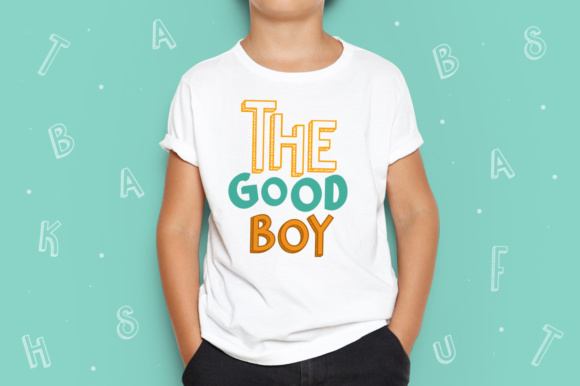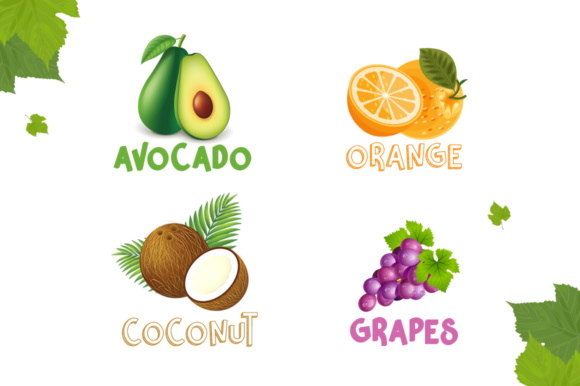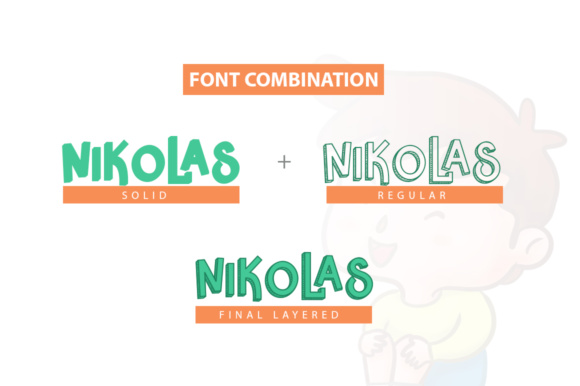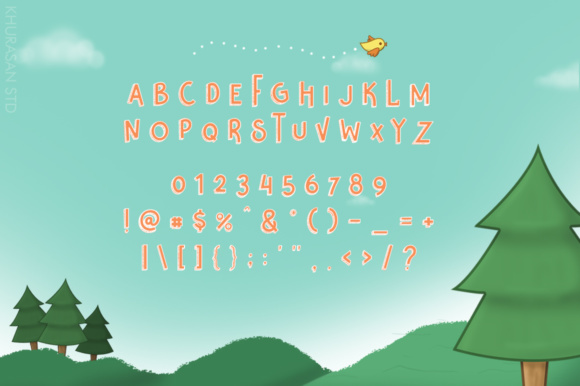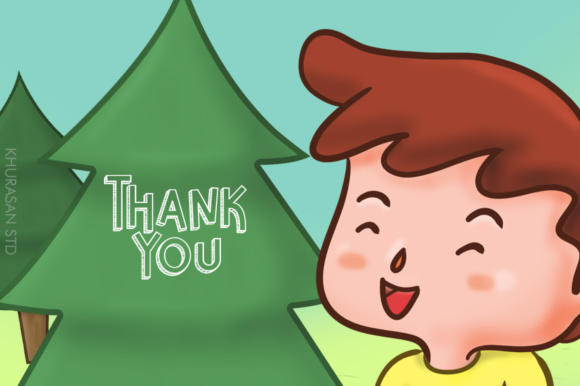
Introduction to Nikolas and Pine Font
Have you ever stumbled upon a font that perfectly captures the essence of your creative project? For designers, finding that elusive font can be a game-changer. It’s the moment when all the elements come together, and your design shines with a newfound depth. That’s exactly what the Nikolas and Pine Font promises to deliver.
As a free download, this high-quality font is an invaluable design resource for any creative project. Whether you’re working on a blog post, social media campaign, or branding material, Nikolas and Pine Font adds a cheerful twist that’s hard to resist. With its transparent background, you can easily customize it to fit your design needs.
With two variations – Regular and Solid – you can choose the one that best suits your project’s tone and style. In this article, we’ll delve into the world of Nikolas and Pine Font, exploring its features and benefits that make it a valuable addition to any designer’s toolkit.
Key Features of Nikolas and Pine Font
- Unique and elegant design, perfect for creative projects and design resources
- Features a transparent background, allowing for seamless integration into various design elements
- Designed with attention to detail, resulting in a professional and high-quality appearance
- Perfect for use in various design projects, including logos, branding materials, and digital graphics
Honest Review: Nikolas and Pine Font
What works well is the high quality of the font itself, with clean lines and a smooth texture. The transparent background is also a plus, making it easy to integrate into any design project. ✨ The font’s versatility allows it to be used for a wide range of creative projects, from logos to typography-heavy designs.
Here are some of the key features:
- High-quality design with clean lines and smooth texture
- Perfect for logos, typography-heavy designs, and more
One limitation I’ve noticed is that the font may not be suitable for very small text sizes, as the letters can become slightly distorted. ⚠️ However, this is a minor issue and can be easily worked around by adjusting the font size or style.
Overall, I’m impressed with the Nikolas and Pine Font and would highly recommend it to any designer looking for a high-quality, versatile font to add to their design resource library.
Nikolas and Pine Font
The Nikolas and Pine Font is a high-quality design resource perfect for creative projects. With a transparent background, this font can be easily used in various applications.
Tips for Getting the Most Out of Nikolas and Pine Font
For optimal results, use the Nikolas and Pine Font in conjunction with other high-quality design elements. Experiment with different font sizes, colors, and styles to create a unique and visually appealing design.
The Nikolas and Pine Font is suitable for a variety of creative projects, including logos, flyers, business cards, and presentations. It’s also a great resource for graphic designers, artists, and writers looking for a high-quality font with a transparent background.